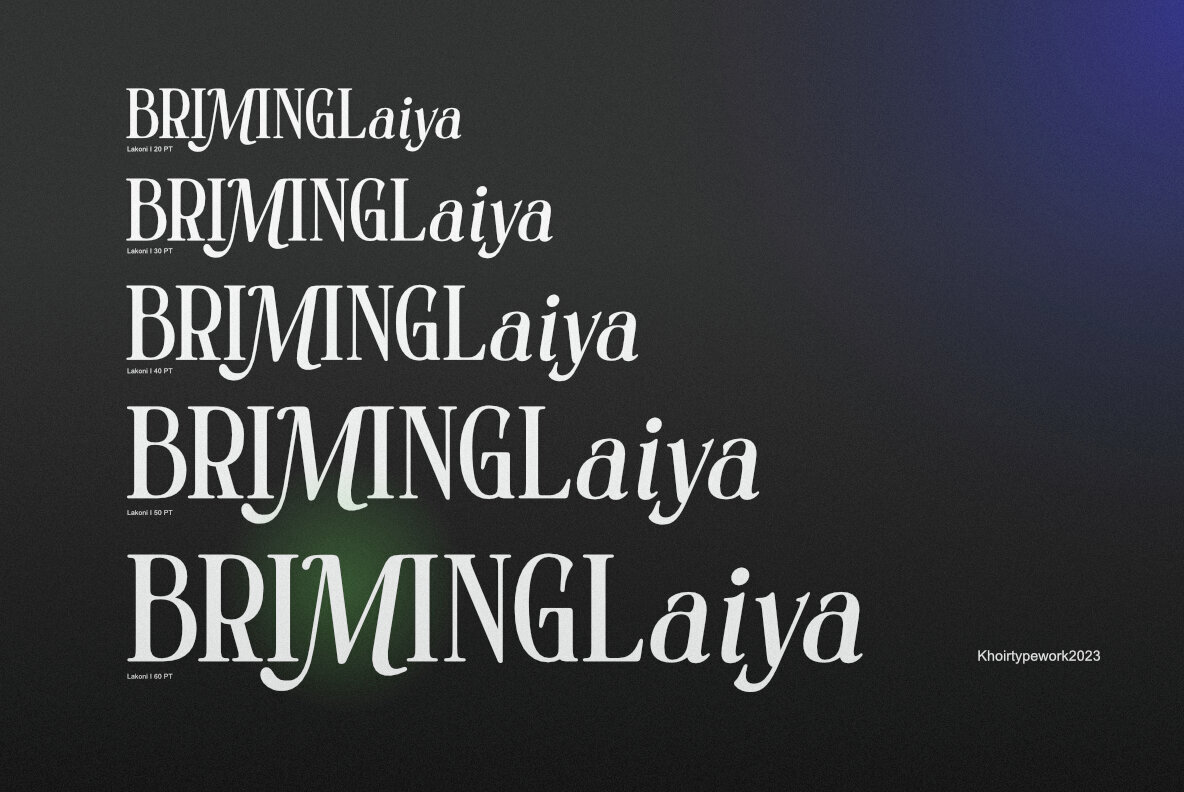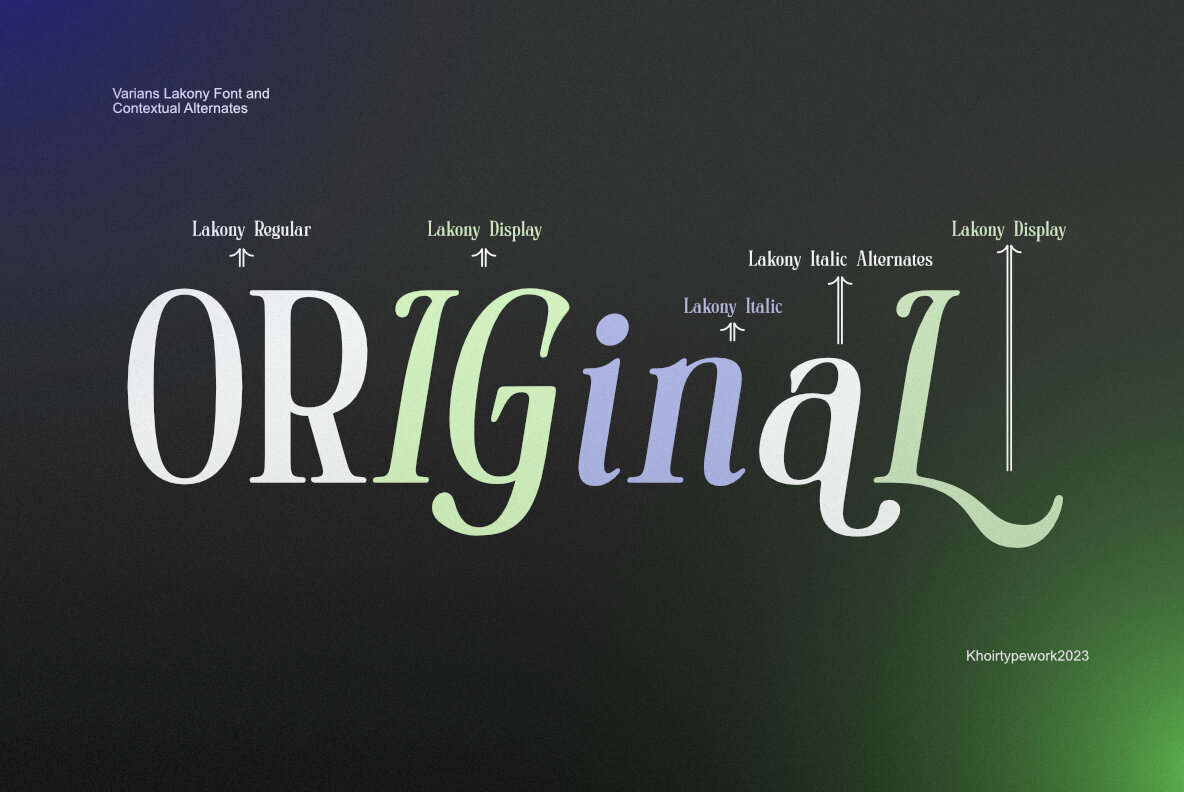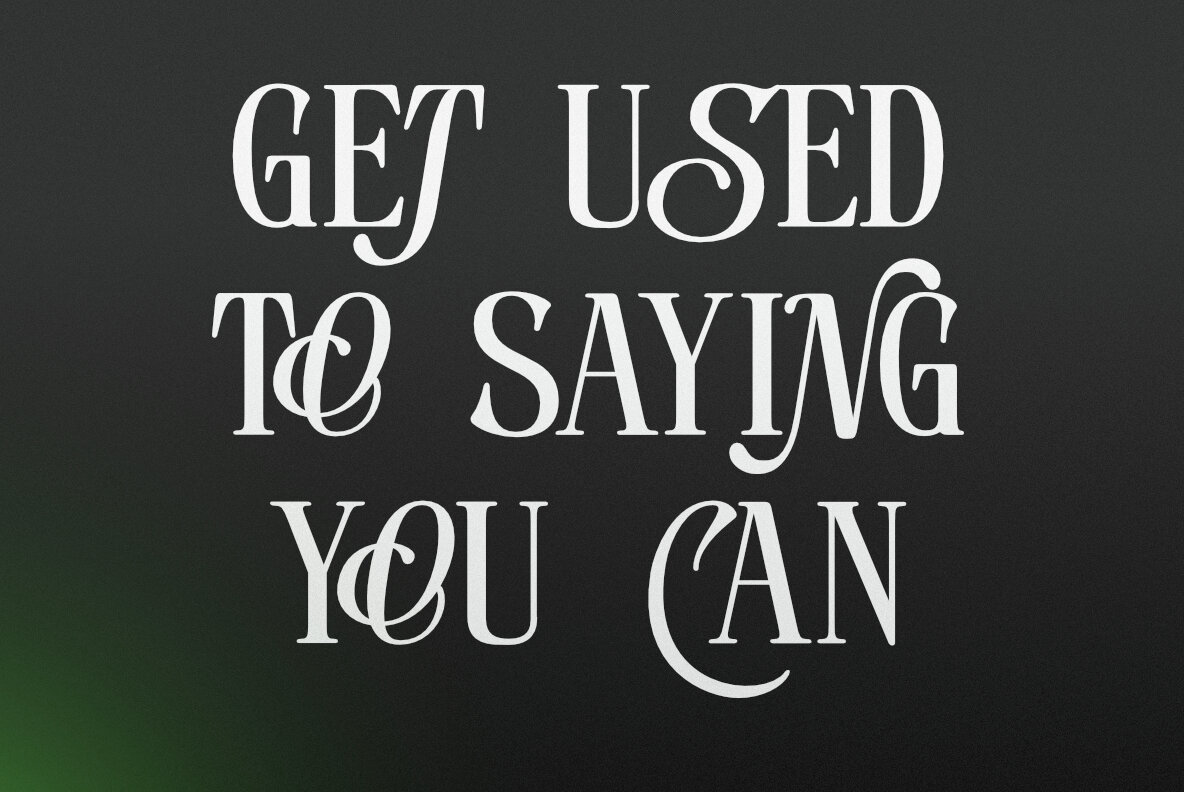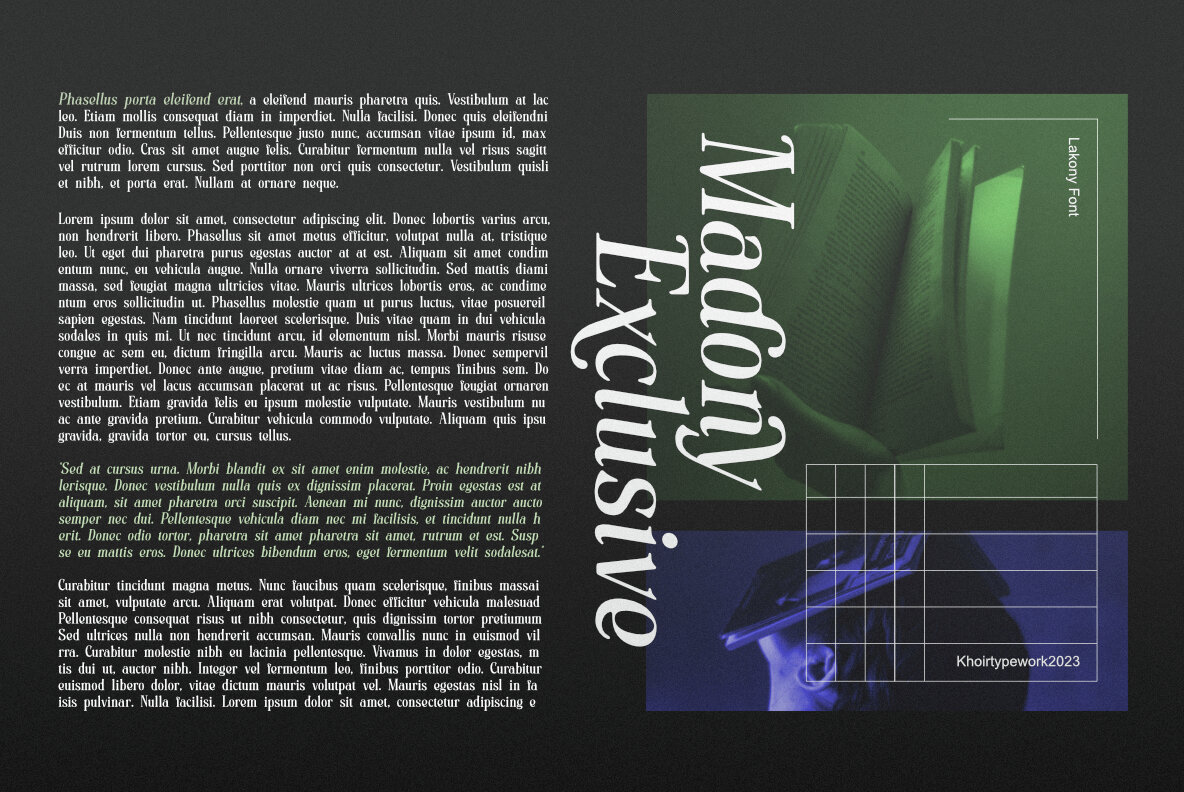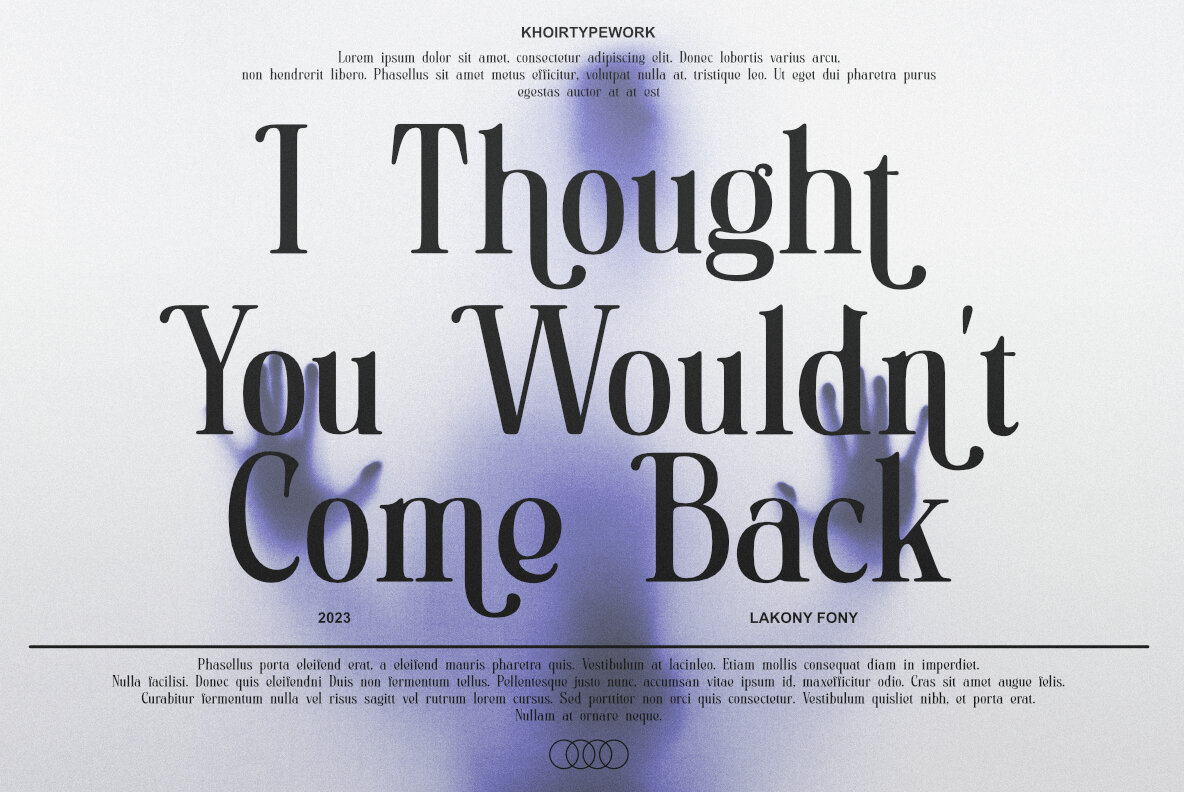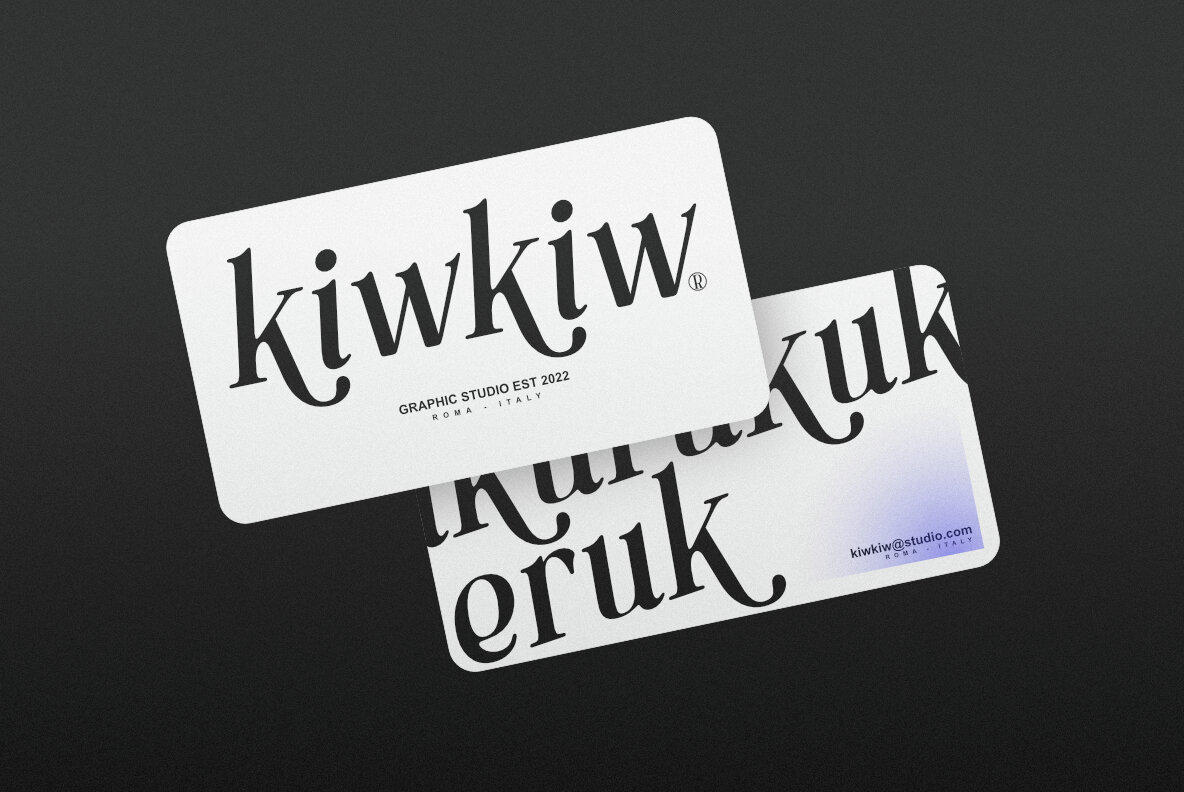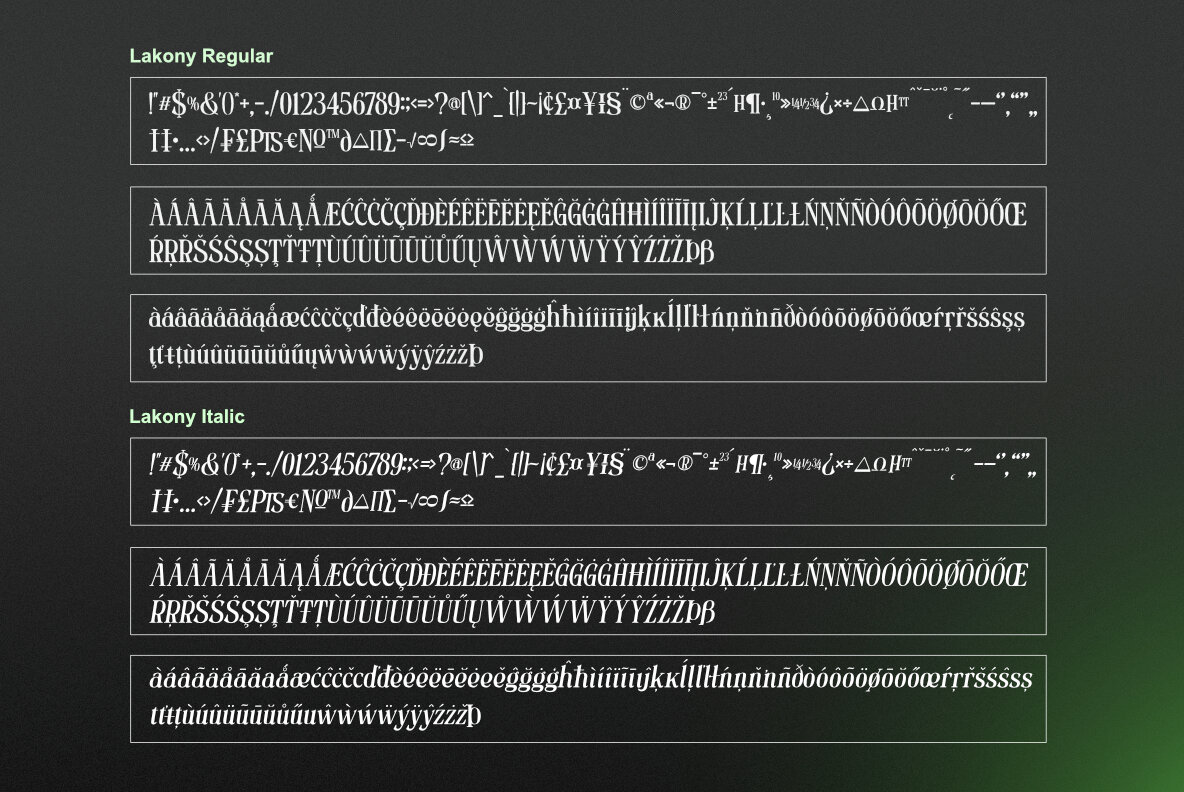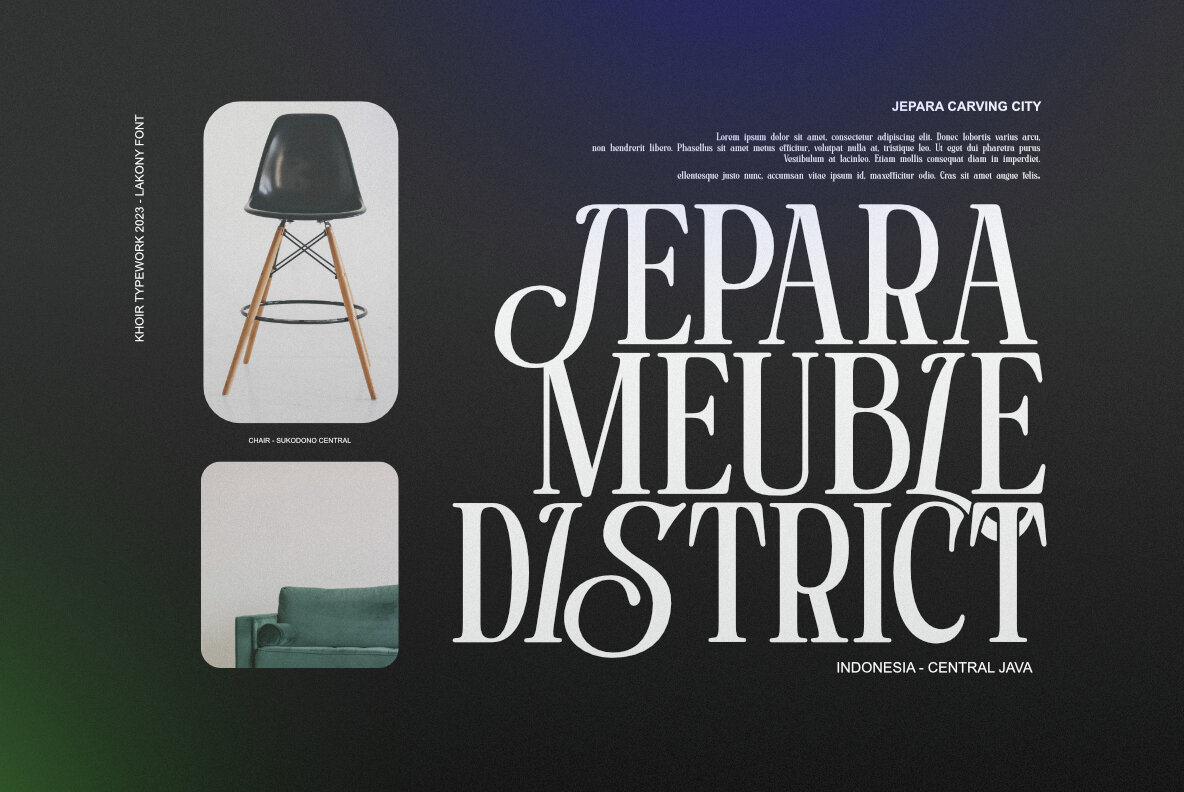
Lakony Font
Lakony brings together regular, italic, and display serif styles into one modern serif font. Designed with high readability and a soft appearance, it ensures a comfortable reading experience. Featuring unique alternates, Lakony allows for creative and distinctive text design, while maintaining its primary function: readability. This makes it ideal for titles, posters, branding, invitation cards, and more.Lakony: A Versatile Modern Serif